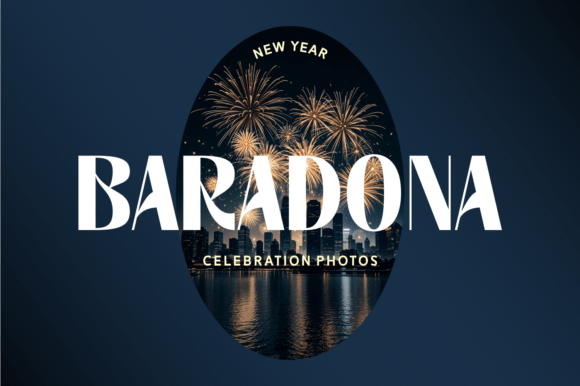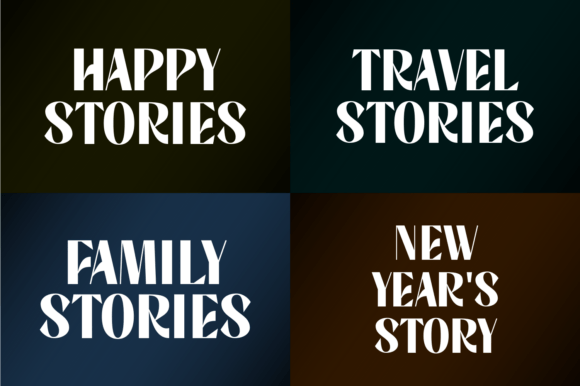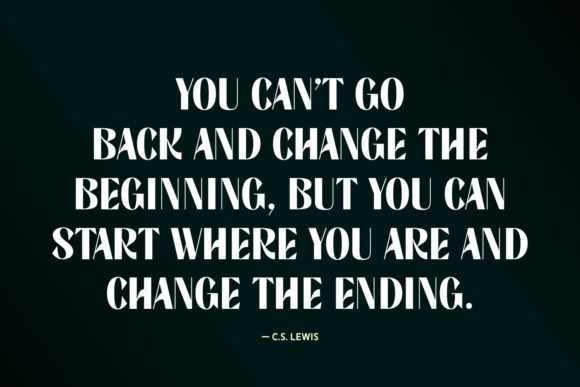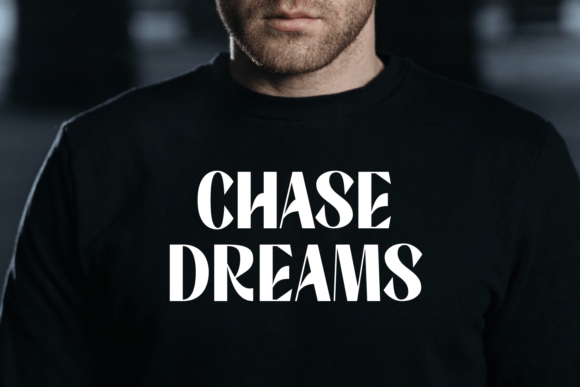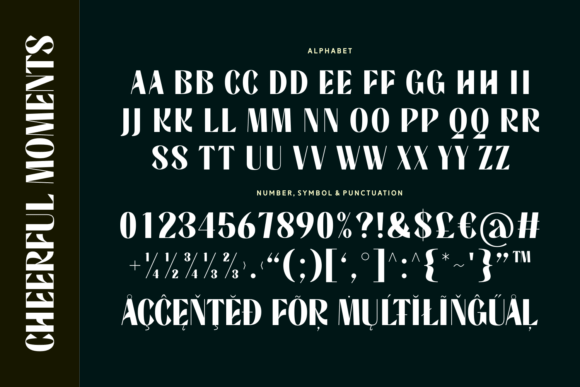
Introducing the Cheerful Moments Font: Elevate Your Design with Effortless Sophistication
Welcome to the vibrant world of the Cheerful Moments Sans Serif Font, a comprehensive collection designed to bring versatility and finesse to your branding endeavors. This font family is meticulously crafted to exude a sense of effortless sophistication, making it an ideal choice for designers and crafters seeking to create stunning visual content.
Unleash the Power of Crisp Design
The Cheerful Moments Sans Serif Font boasts a crisp, clear-cut design that is both visually appealing and highly legible. Its clean lines and smooth contours make it perfect for a wide range of applications, from eye-catching book covers to crisp magazine layouts. Whether you’re looking to create authentic apparel, craft catchy taglines, or design product packaging, this font collection has got you covered.
Explore the Extensive Font Family
The Cheerful Moments Sans Serif collection is an extensive library of fonts that includes:
- The standard Regular font, perfect for everyday design needs
- A creative Italic style, ideal for adding a touch of elegance to your designs
- A variety of seasonal and up-to-the-minute fonts, ensuring your designs stay fresh and trendy
- Alternate and accent fonts, providing you with the flexibility to experiment with different styles
Make a Bold Impression with Swash Fonts
Take your designs to the next level with the stunning swash fonts included in the Cheerful Moments collection. These decorative fonts are perfect for creating unique logotypes, adding a touch of drama to your designs, and making a bold impression on your audience.
Stay on Trend with Trendy T-Shirt Fonts
Keep your designs fresh and trendy with the Cheerful Moments t-shirt fonts, carefully curated by 7ntypes. These fonts are specifically designed to make your apparel designs stand out, whether you’re creating custom t-shirts, hoodies, or other merchandise.
Embedding Notable Quotes on Merchandise
The Cheerful Moments Sans Serif Font is also perfect for embedding notable quotes on merchandise. Its natural appeal, easy legibility, and round, smooth contours make it an excellent choice for product packaging, posters, and other promotional materials.
Why Choose the Cheerful Moments Font?
So, why choose the Cheerful Moments Font for your design needs? Here are just a few compelling reasons:
- Versatility: The Cheerful Moments Font is designed to be versatile, making it suitable for a wide range of applications and design projects.
- Effortless Sophistication: This font collection exudes a sense of effortless sophistication, perfect for designers and crafters seeking to create high-end visual content.
- Easy Legibility: The font’s clean lines and smooth contours ensure easy legibility, making it perfect for body text, headings, and titles.
- Trendy and Fresh: The Cheerful Moments Font is designed to keep your designs fresh and trendy, with a range of seasonal and up-to-the-minute fonts to choose from.
Get Ready to Elevate Your Design
With the Cheerful Moments Sans Serif Font, you’re just a step away from elevating your design to new heights. Whether you’re a seasoned designer or a crafty DIY enthusiast, this font collection is sure to inspire and empower you to create stunning visual content.